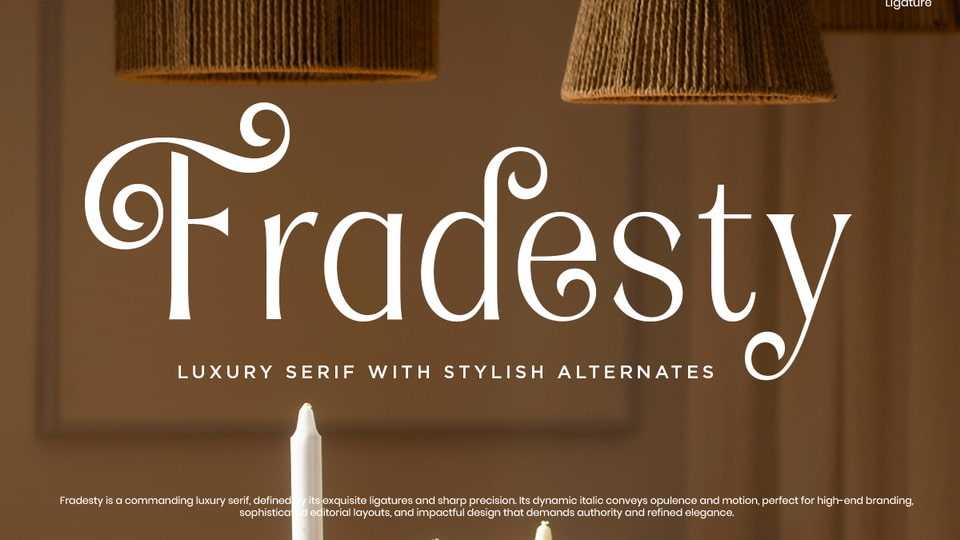
Download Fradesty font, an elegant and commanding luxury serif typeface designed for high-end branding, editorial layouts, and refined visual storytelling.